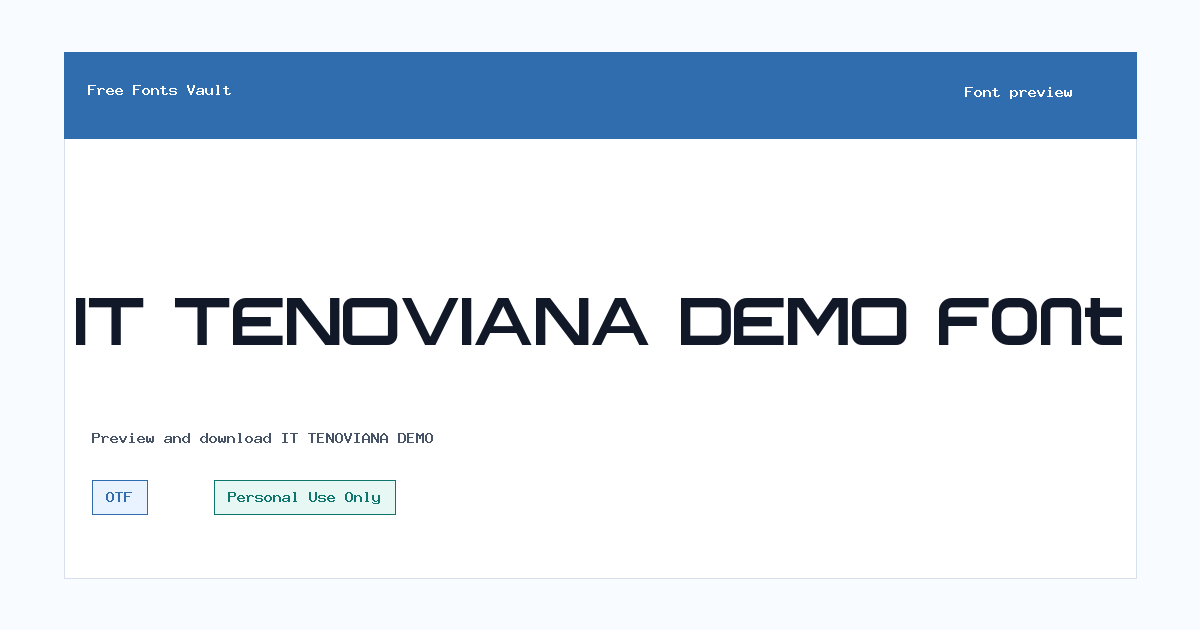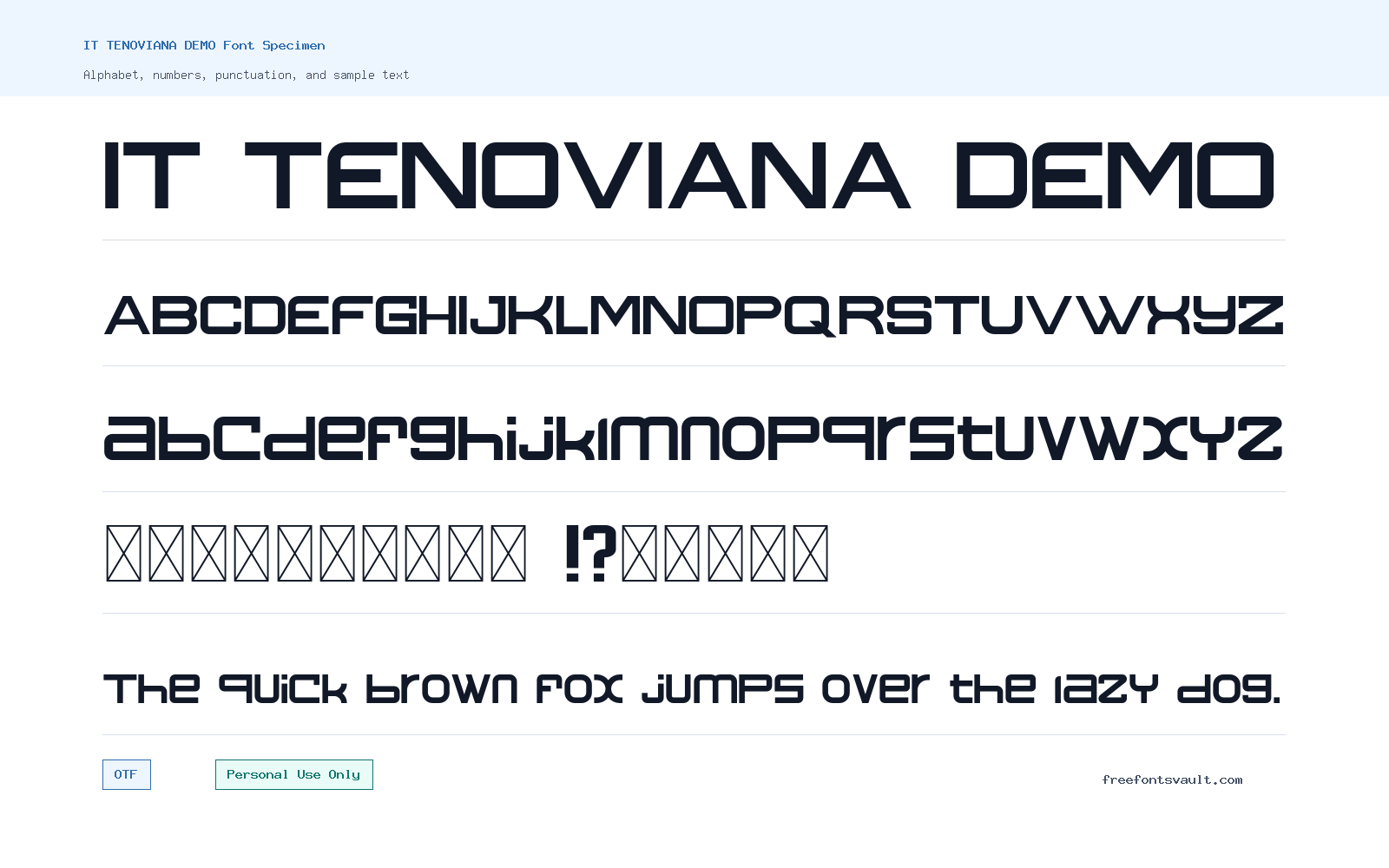
IT TENOVIANA DEMO
- Designer Indotype Foundry
- Foundry Indotype Foundry
IT TENOVIANA DEMO is a display font from Indotype Foundry with a futuristic, techno-leaning look. It is best treated as a strong headline face for personal projects, especially when you want lettering that feels sharp, digital, and built for impact.
About IT TENOVIANA DEMO
IT TENOVIANA DEMO is the demo version of Tenoviana, a sci-fi display sans style associated with Indotype Foundry. Its design is presented by font marketplaces as bold, geometric, and made for high-impact visual work rather than long-form reading. That makes it a better fit for short words, title lines, game-style UI concepts, poster headers, album-style graphics, and experimental branding studies. The font file listed for this page is an OTF Regular style, so visitors can install it in most modern design apps and test it quickly in a preview or layout tool.
The main thing to understand before using IT TENOVIANA DEMO is its role: it is a display font, not a neutral body-text family. Use it where the lettering itself is part of the visual identity. A single word, a logo draft, a hero heading, a cover title, or a tech-themed social post will usually show its personality better than a paragraph. Because fonts in this style often rely on angular shapes and strong spacing, it is worth testing your exact phrase in uppercase and lowercase, then checking whether letters such as A, E, R, S, and numbers remain clear at the size you plan to use.
For logo work, IT TENOVIANA DEMO can be useful during early concept exploration for gaming names, sci-fi titles, electronic music projects, event graphics, techwear mockups, and digital product moodboards. Keep the wording short and give the letters enough room to breathe. If the mark needs to work at very small sizes, make a reduced-size test before committing to the direction. Display fonts can look striking at poster scale but lose detail in favicons, mobile headers, small merch tags, or app navigation.
For posters and web mockups, pair IT TENOVIANA DEMO with a quieter sans serif for supporting text. A simple grotesk, humanist sans, or system UI font can handle descriptions, dates, buttons, captions, and navigation while Tenoviana carries the main title. Avoid pairing it with another highly decorative techno font unless you want a deliberately loud composition. One strong display voice is usually enough; the rest of the layout should help the reader understand the message quickly.
- Futuristic display sans style suited to short, high-impact text
- Works best for titles, logo concepts, posters, game visuals, and tech-themed mockups
- Better for display sizes than body copy or dense interface text
- Sci-fi poster titles and event graphics
- Gaming logo drafts and cyberpunk-style UI concepts
- Electronic music artwork, cover mockups, and visual identity studies
- Techwear, digital product, and futuristic branding explorations
- Personal design experiments where a bold display font is needed
What kind of projects does this font suit?
It suits short display text such as sci-fi titles, gaming visuals, poster headlines, logo drafts, music artwork, tech-themed mockups, and personal branding experiments.
Is this a good font for paragraphs?
No. IT TENOVIANA DEMO is a display font, so it is better for headlines and short text. Use a simpler sans serif for body copy and supporting information.
Who designed IT TENOVIANA DEMO?
The font is credited to Indotype Foundry.